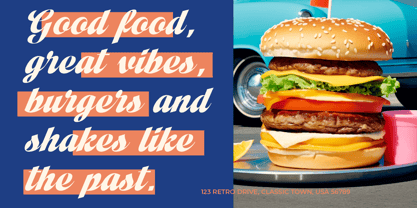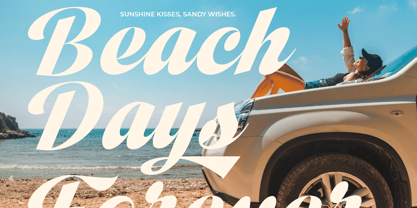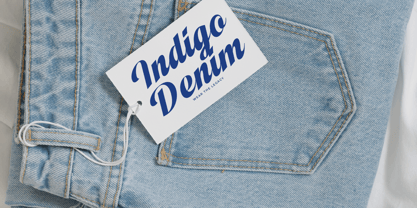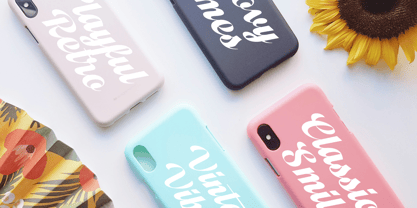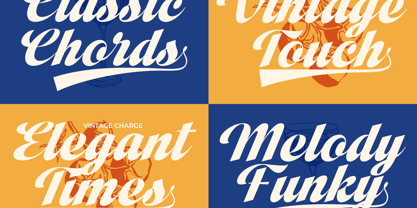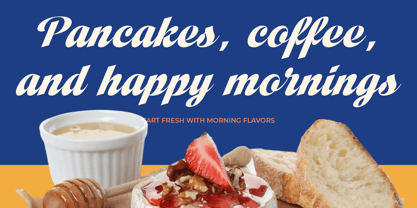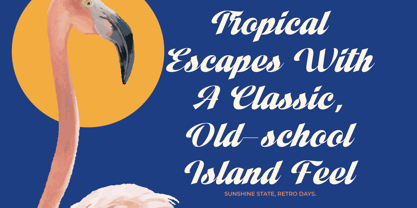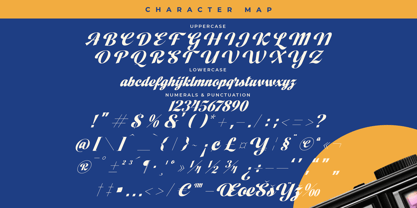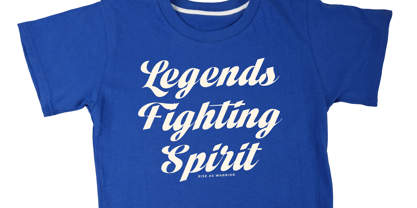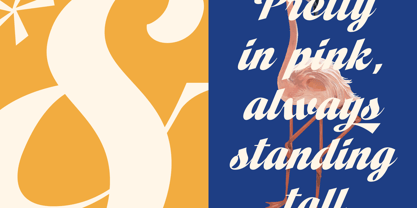
Vintage Charge
The Vintage Charge Font Family was designed by Heru Utama Putra and published by Timelesstype Studio. Vintage Charge contains 2 styles and family package options. More about this family
Vintage Charge - Bold Script Font , from Timelesstype, Suitable for any projects such as: logos, branding projects, homeware designs, product packaging, mugs, quotes, posters, shopping bags, t-shirts, book covers, name card, invitation cards, greeting cards, label, photography, watermark, special events, and all your other luxury and beautiful projects that need a Luxury Script taste.